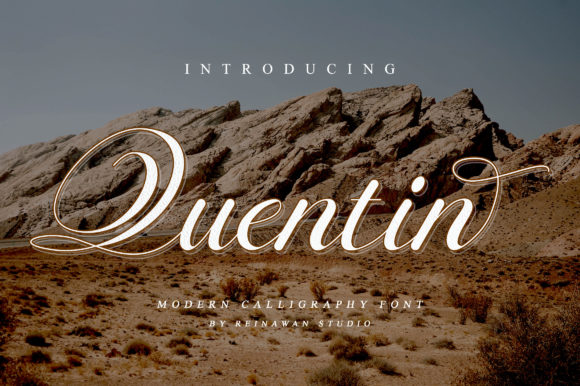
Welcome to the world of Quentin Font, the script font that captures the essence of family, warmth, and nostalgia. Crafted by the skilled hands of Reinawan Studio, Quentin is not just a font; it's an invitation to cherished memories and heartfelt connections.
Immerse yourself in the beauty of Quentin's flowing strokes and delicate curves, reminiscent of handwritten letters exchanged between loved ones. This modern script dances across your screen, evoking a sense of togetherness and love that's perfect for packaging products, mockups, invitation cards, Thanksgiving greetings, and any project that calls for a touch of heartfelt elegance.
With Quentin, you'll embark on a journey of creativity and expression. Its PUA-encoded nature grants you effortless access to a treasure trove of glyphs and swashes, empowering you to add an extra layer of charm and uniqueness to your designs.
But Quentin is more than just a versatile tool; it's an experience that speaks to your soul. Its graceful characters, inspired by the bonds of family and the joy of reunions, will add a touch of warmth and intimacy to your projects.
Imagine transforming your packaging designs into works of art, where every letter dances in harmony, inviting customers to connect with your brand on a deeper level. Picture your mockups adorned with Quentin's elegant strokes, capturing the essence of your products and leaving a lasting impression.
With Quentin, your invitation cards become cherished keepsakes, carrying the promise of joyous gatherings and heartfelt celebrations. And as you create Thanksgiving greetings, the font's delicate curves will convey your gratitude and love, making every message a heartfelt expression of thanks.
Quentin Font is not just a font; it's a gateway to a world of emotions, a celebration of life's special moments. Embrace its charm, let your creativity flow, and turn your designs into captivating expressions of love, family, and unity.